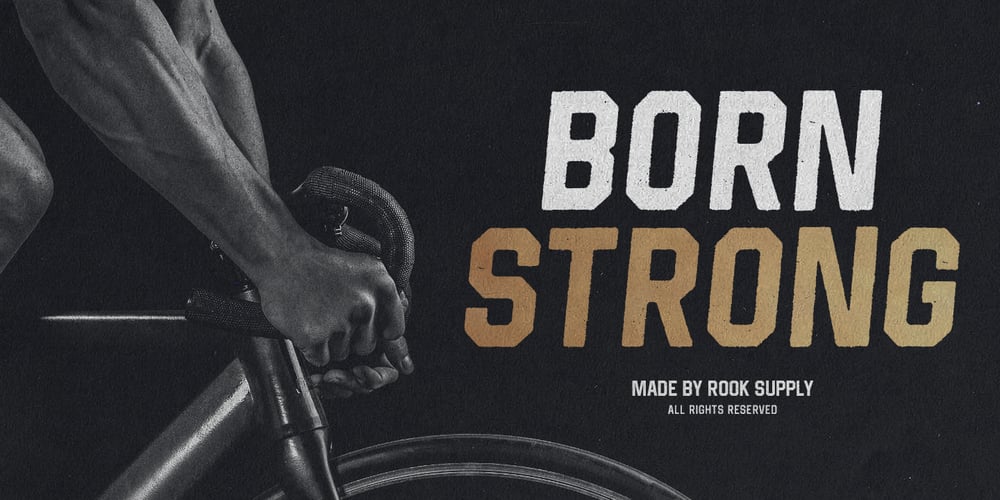
Born Strong
Born Strong font
Born Strong Font Family was designed by Greg Nicholls and published by Rook Supply. Born Strong contains 12 styles and family package options. Born Strong is built with athletics in mind. The goal was to make the perfect typeface for sports teams, college football, athletic wear and everything in between. The font family supports a wide range of languages and is available in many different weights.